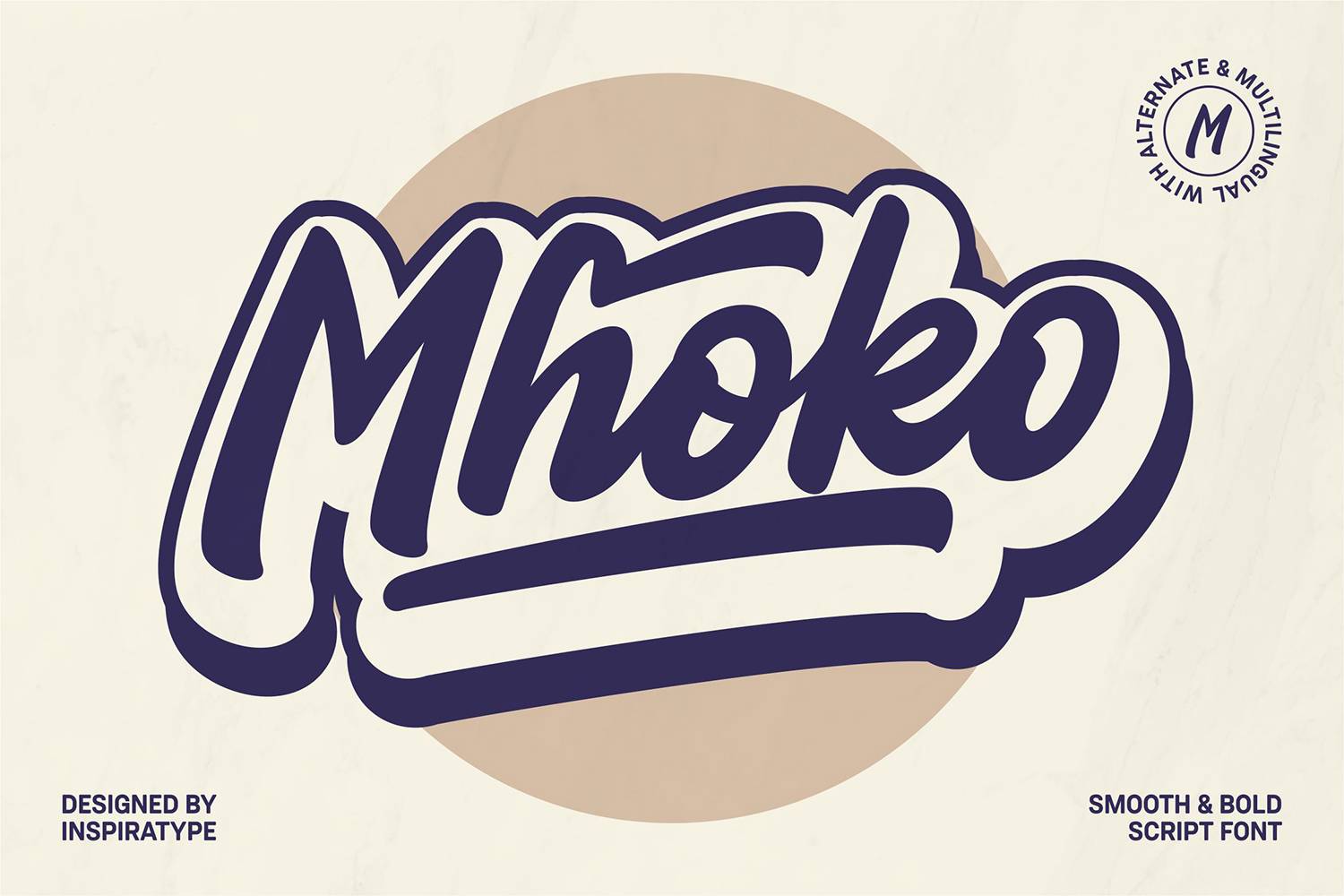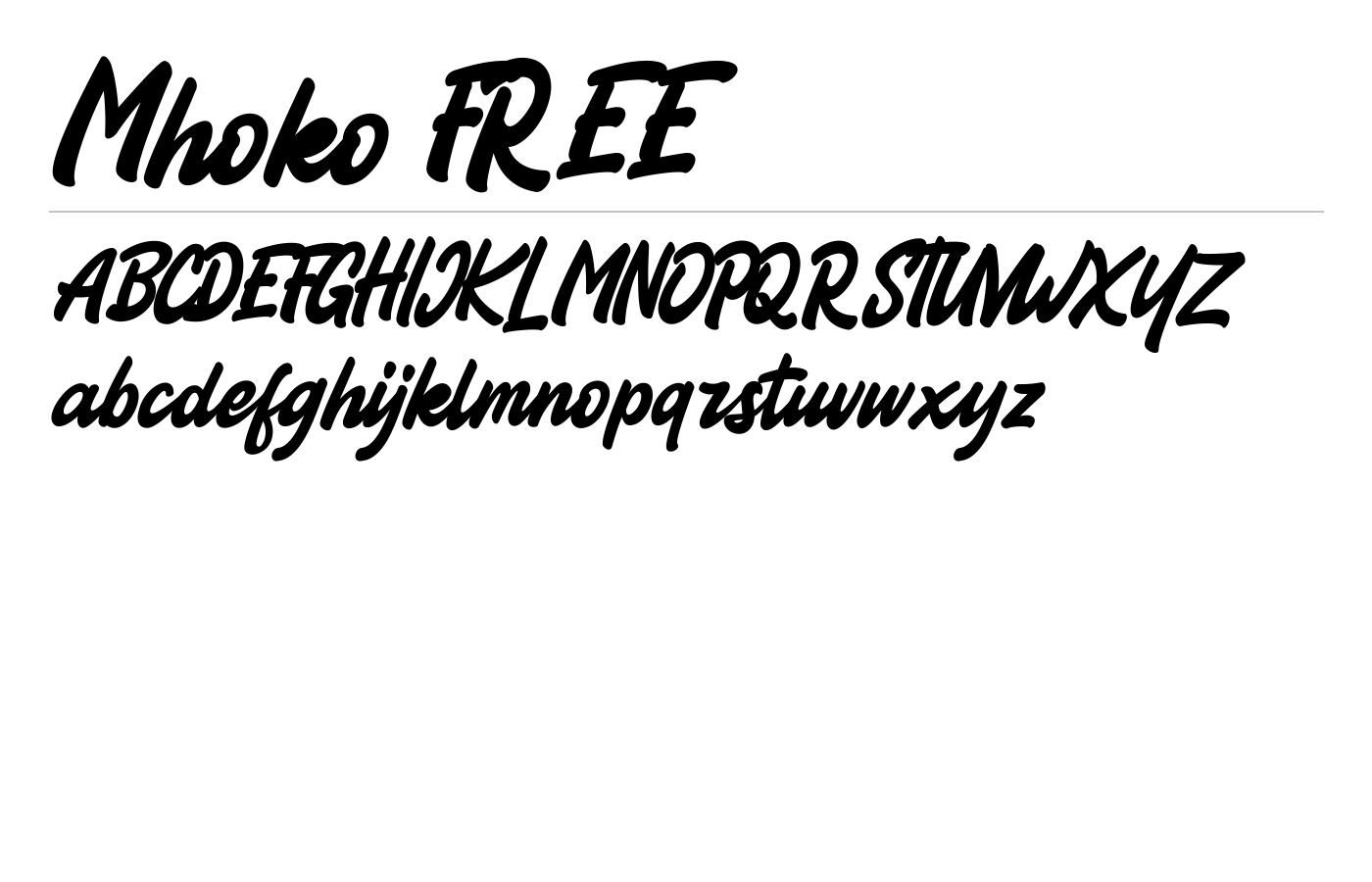
Mhoko is a bold, casual script font with a lively and friendly feel, featuring smooth, rounded strokes that mimic natural handwriting. Its energetic style and clear letterforms make it ideal for creative projects, branding, and informal headlines where a warm, approachable vibe is desired. This font works well for invitations, logos, and posters that need an expressive, personal touch.
Mhoko Font
About Mhoko Font
| Font family | Mhoko Font |
| Designer | Inspiratype |